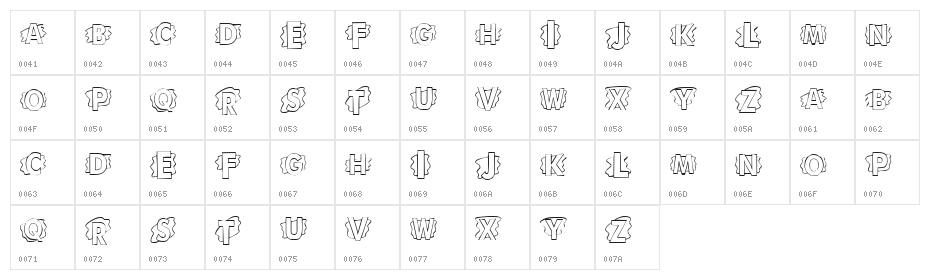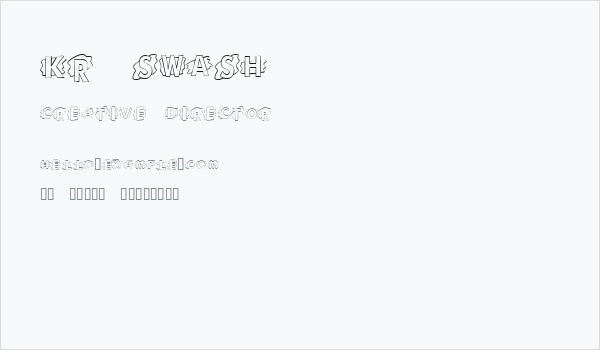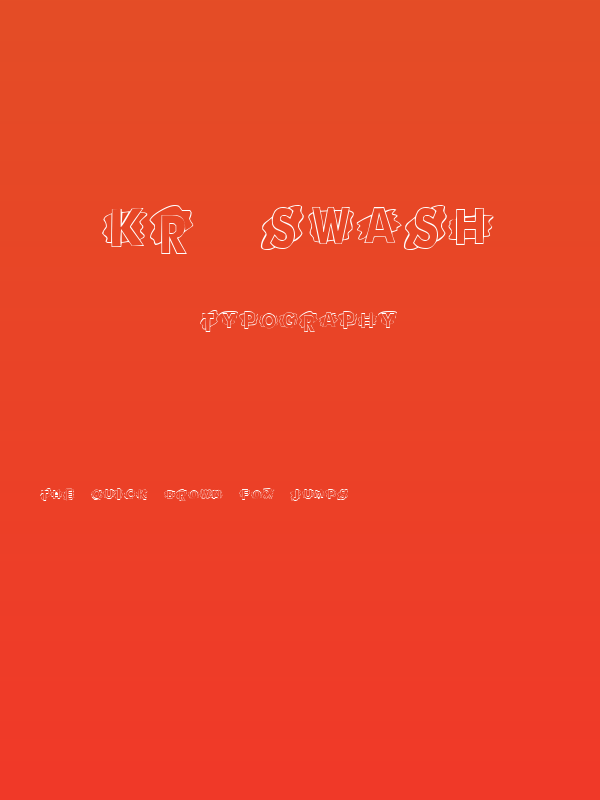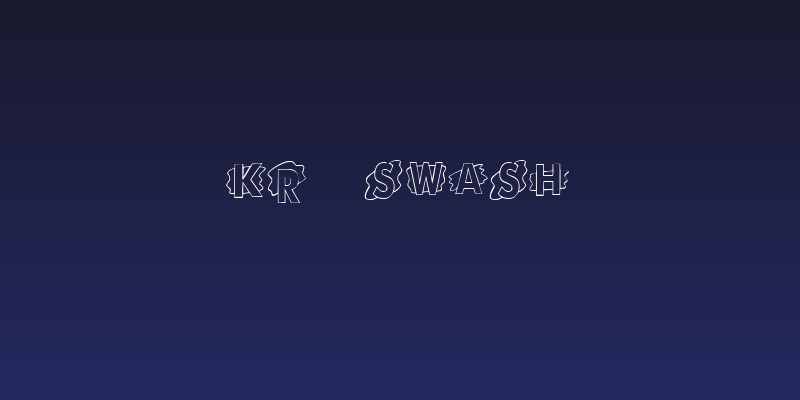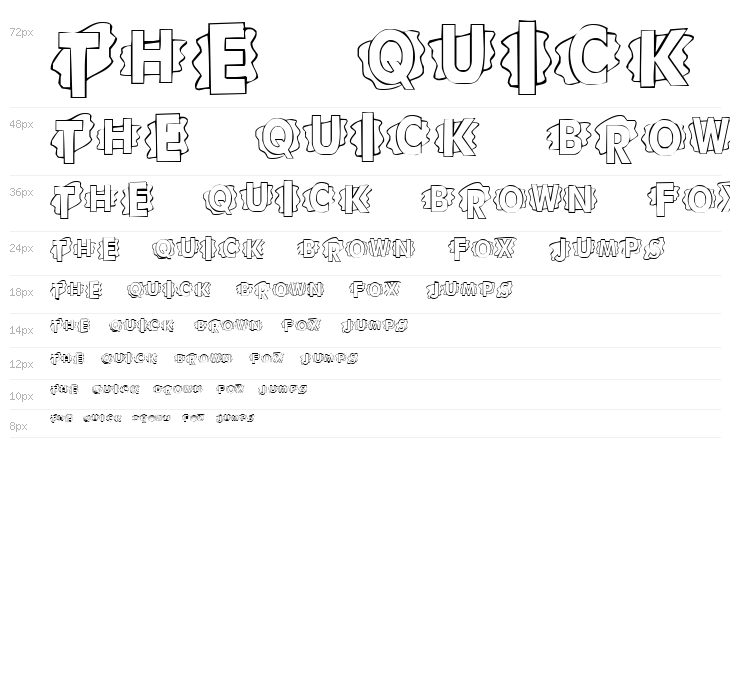
KR Swash Font
KR Swash Description
This font features a bold and decorative style with a unique outline effect. Each character is designed with a playful, artistic flair, incorporating swash elements that give it a dynamic and eye-catching appearance. The uppercase letters are particularly striking, with intricate details that make them stand out. The overall design is reminiscent of vintage signage or retro poster art, making it ideal for projects that require a touch of nostalgia or whimsy. The font's boldness ensures it remains legible while maintaining its decorative charm.
Overall StyleVintage
Proposed ProjectsIdeal for vintage-themed posters, creative branding, event invitations, and decorative signage.